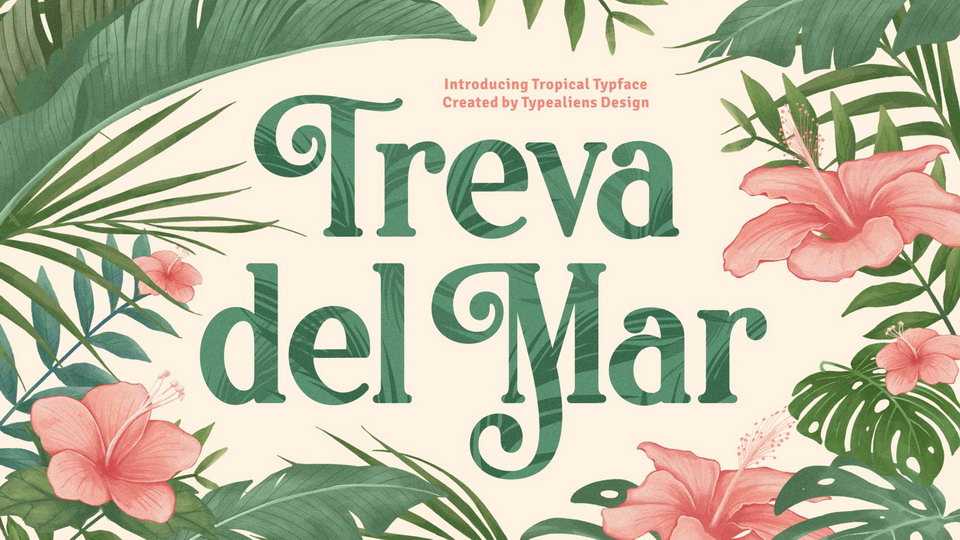
Download Treva Del Mar font, a serif typeface with decorative uppercase, very elegant in a tropical style. Treva Del Mar is suitable for display fonts, logotypes, designs for packaging, label design, or food-related designs.
Designer: Typealiens